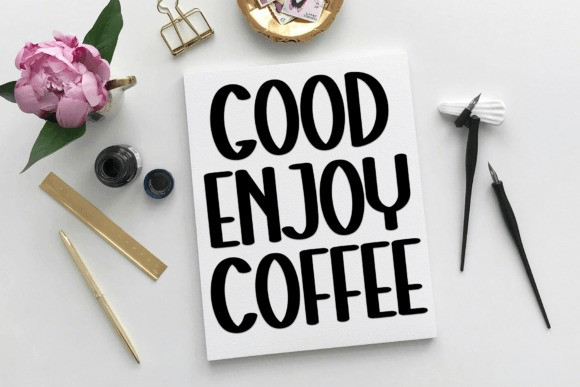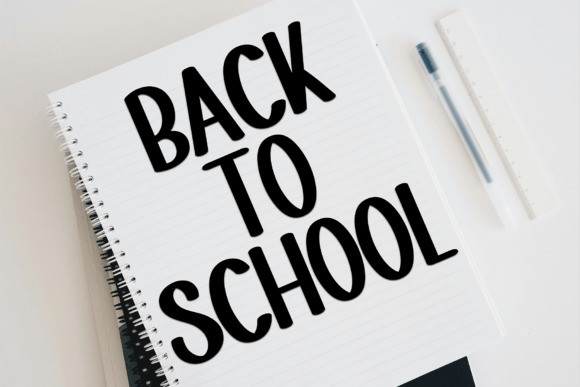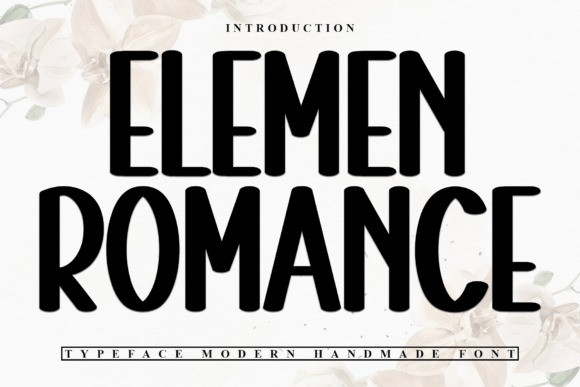
Elemen Romance Font
Elemen Romance Font is a sweet and friendly handwritten font. Its natural and unique style makes it incredibly fitting to a large pool of designs. The only limit is your imagination!